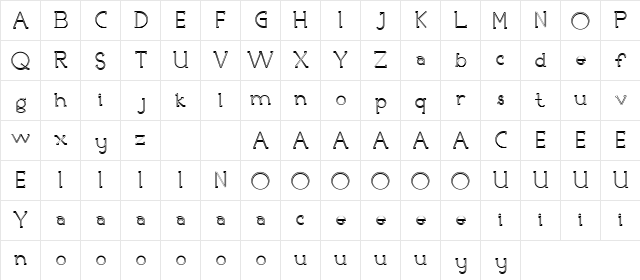
NICOLLS DEMO Outline
| Foundry | edric studio |
| Designer | M Deyan |
Design Context for NICOLLS DEMO Typeface
NICOLLS DEMO is built around its visual character rather than neutral utility — its distinctive forms are designed to make an impression at display sizes.
Font Pairing: Pair with a clean neutral sans-serif for body copy to let NICOLLS DEMO's character lead without overwhelming the composition.
Pro Tip: Use NICOLLS DEMO exclusively at display sizes — it was designed to be seen, not read at length. Let a neutral companion handle body copy.